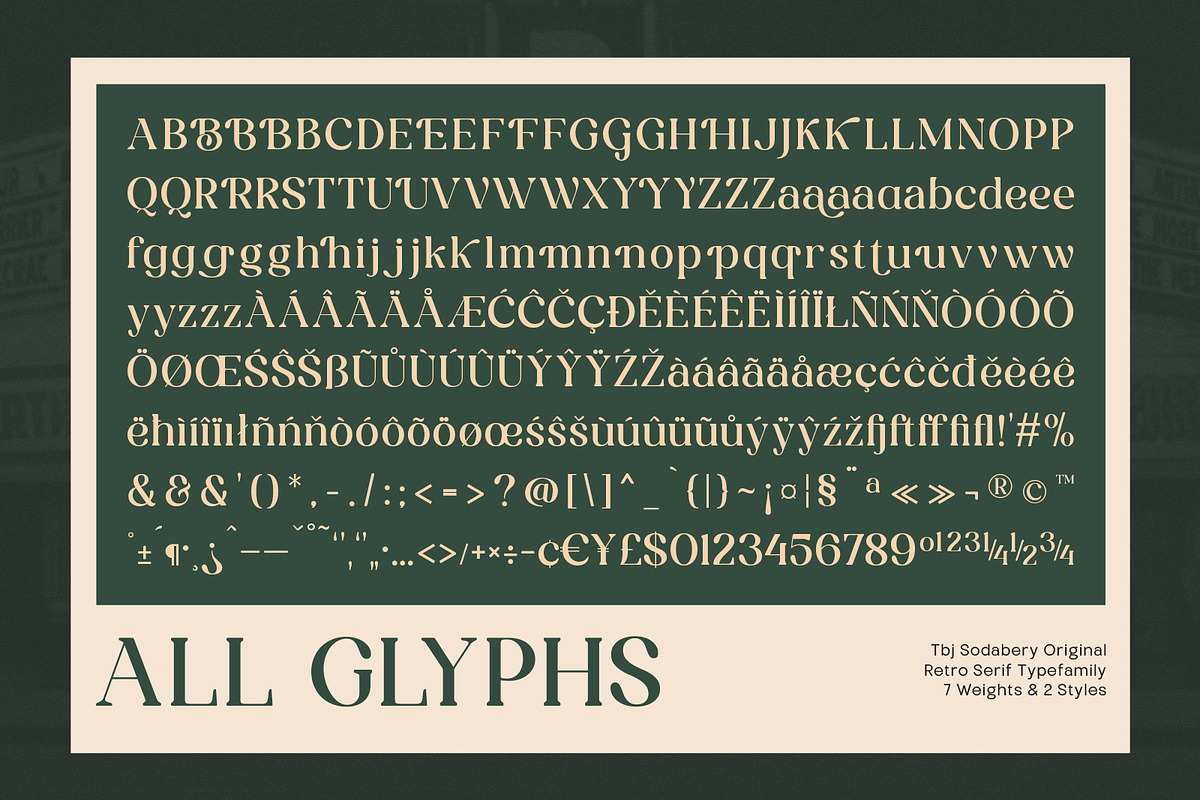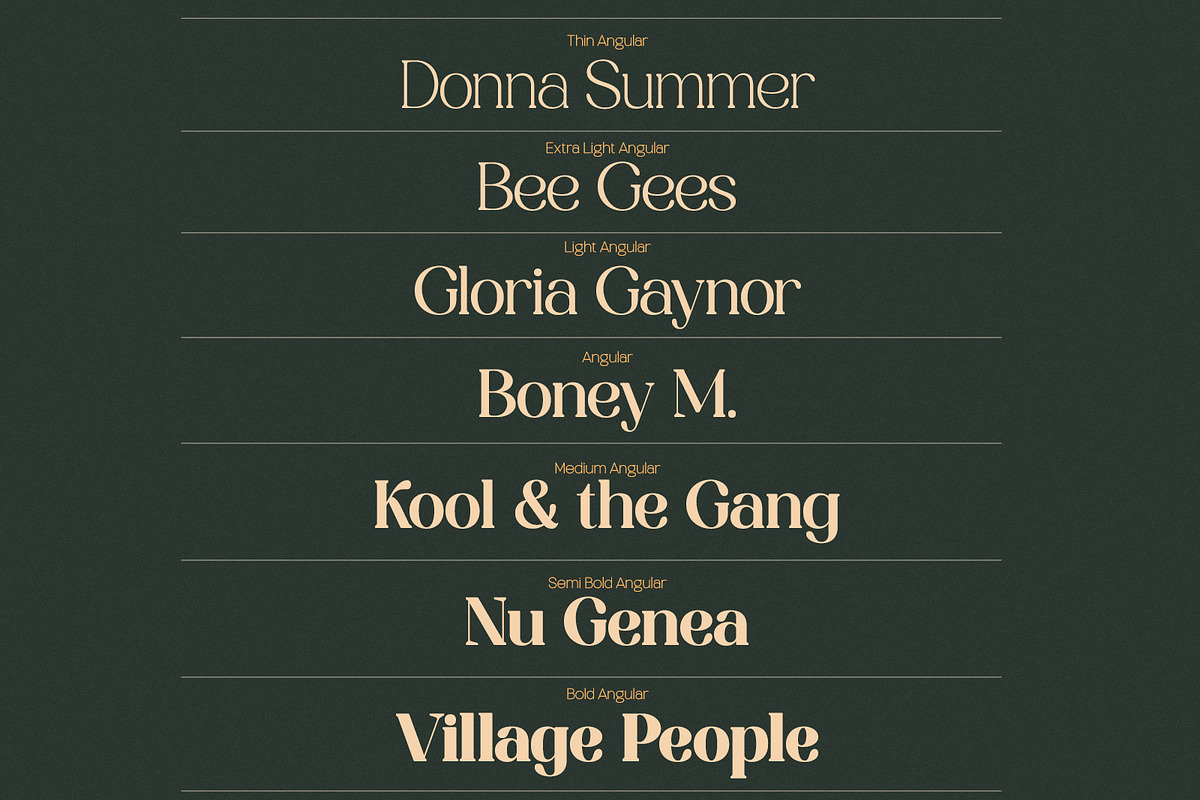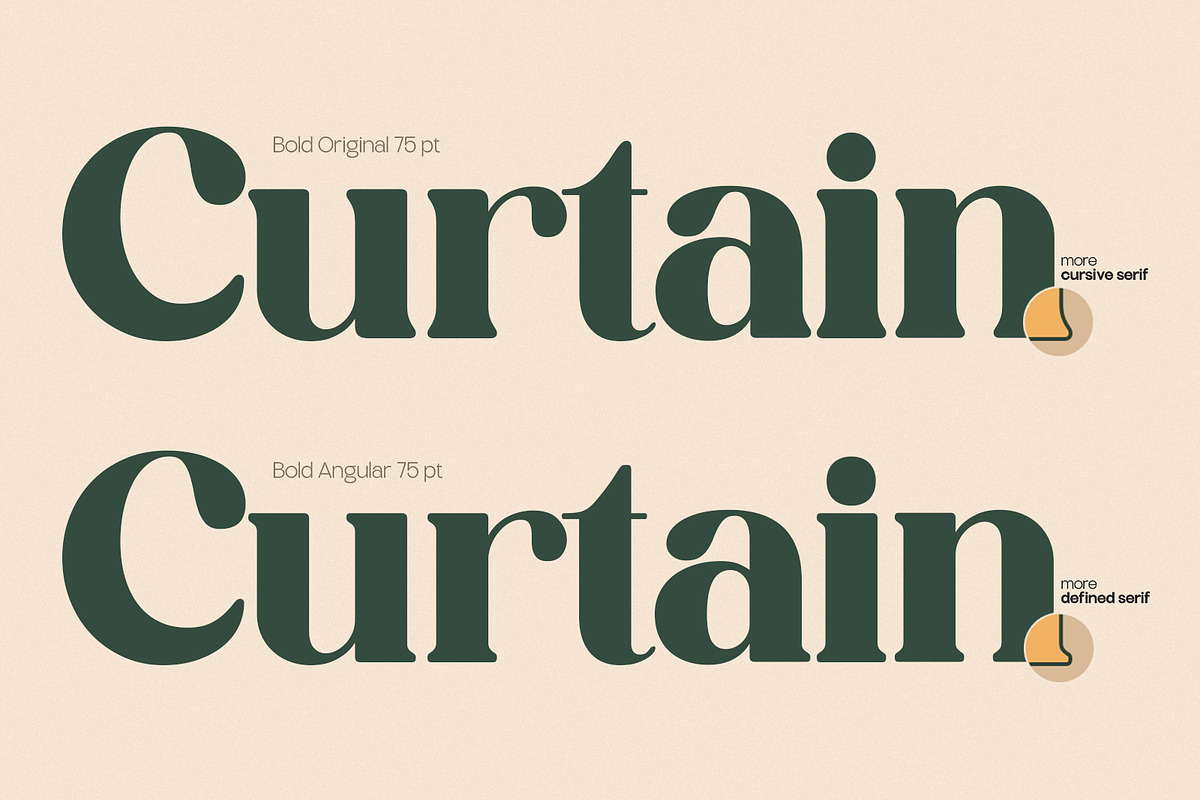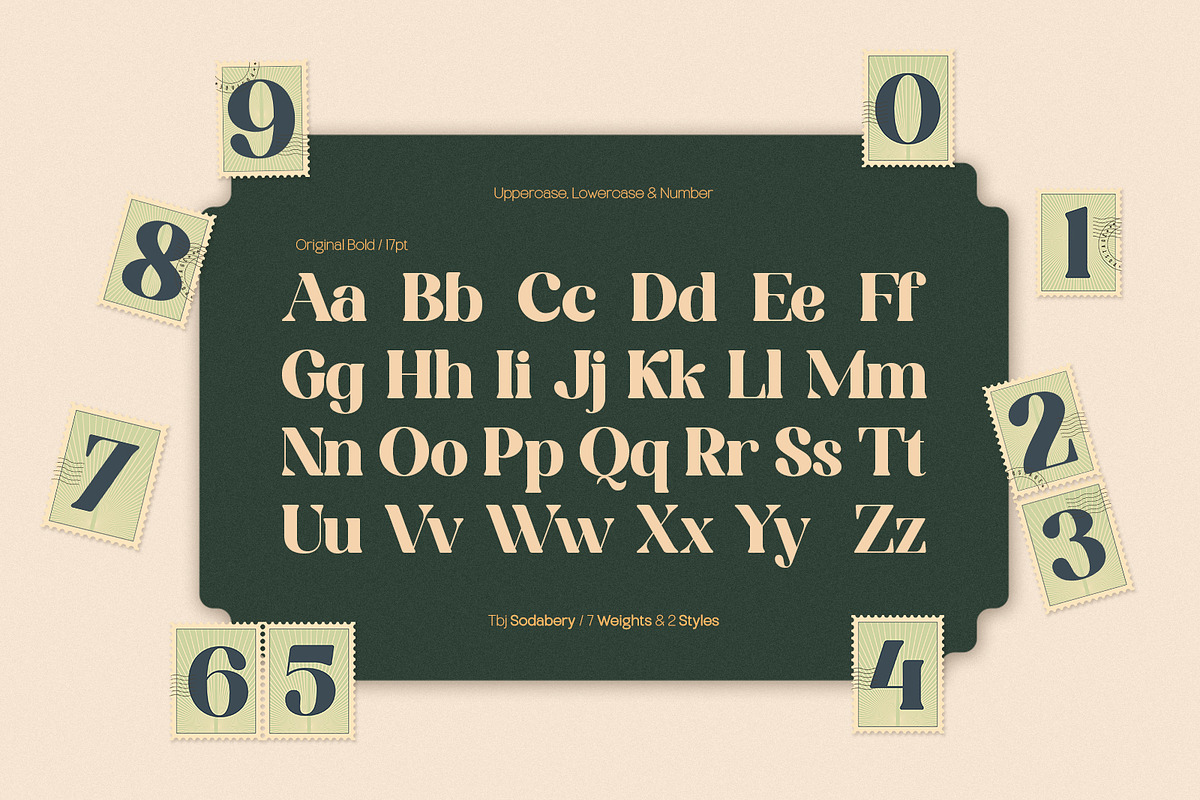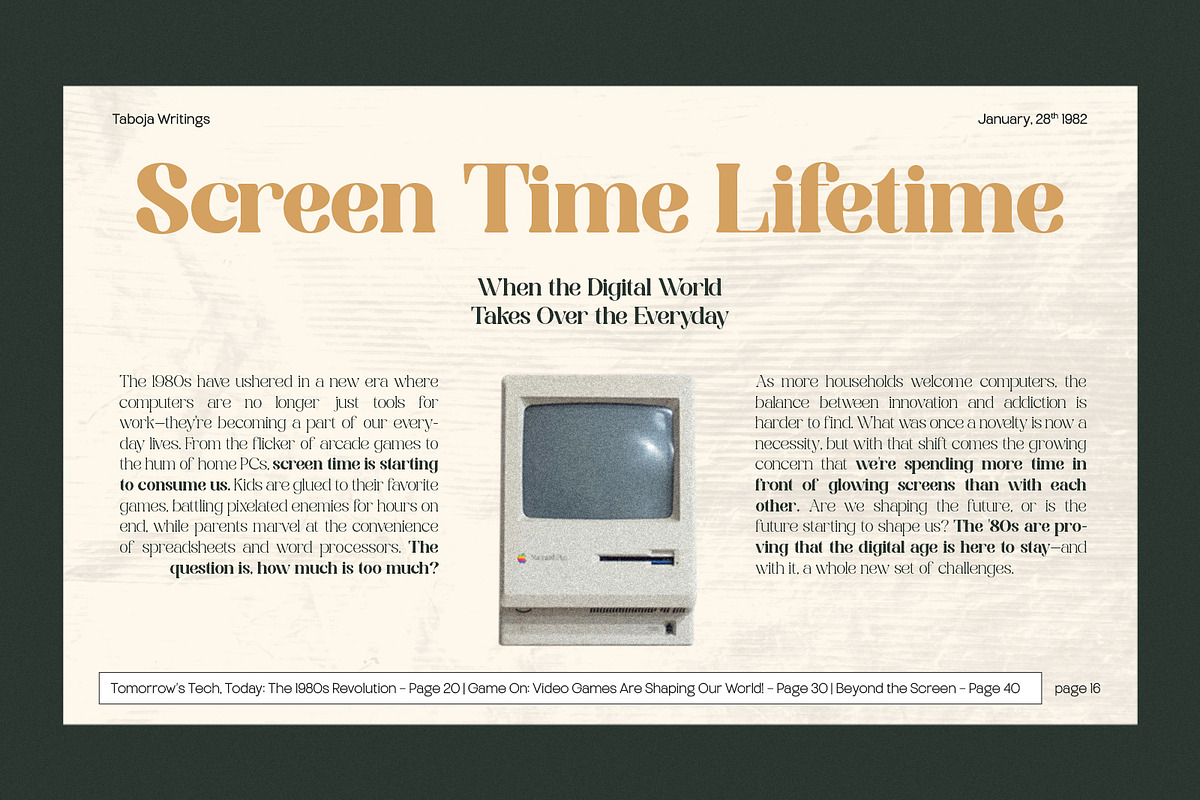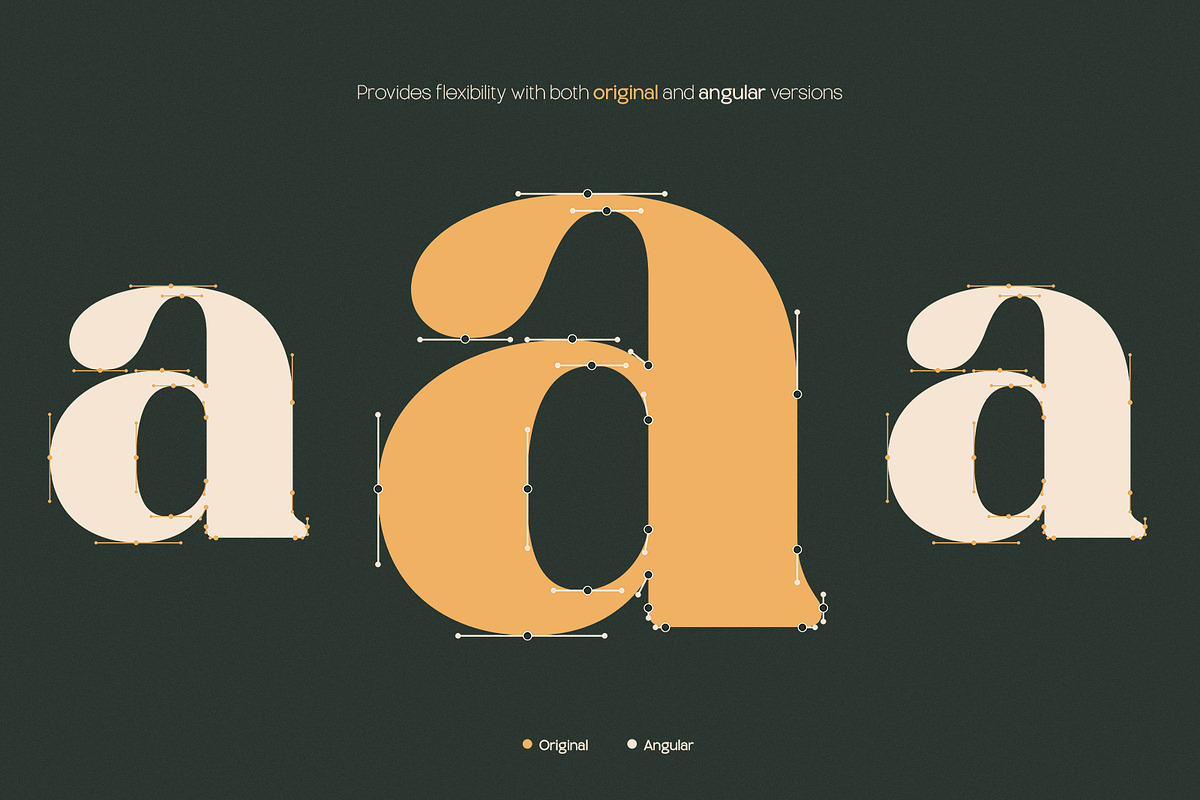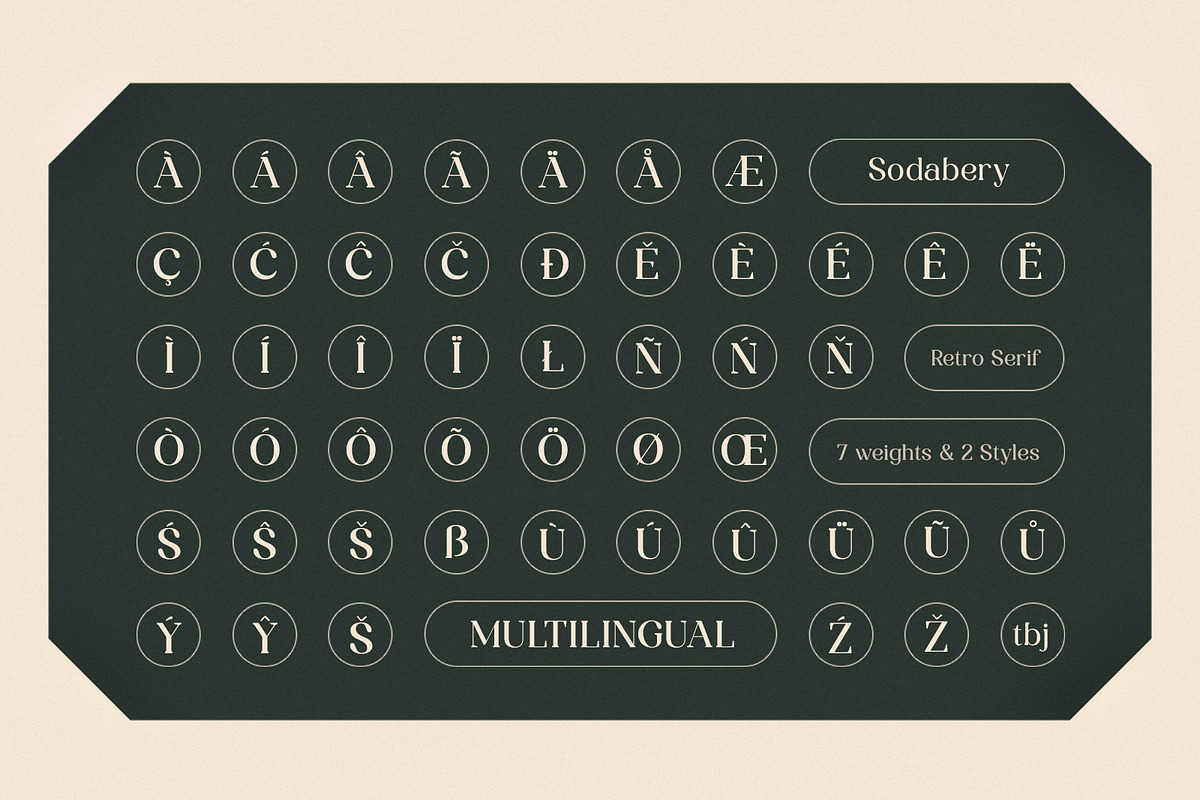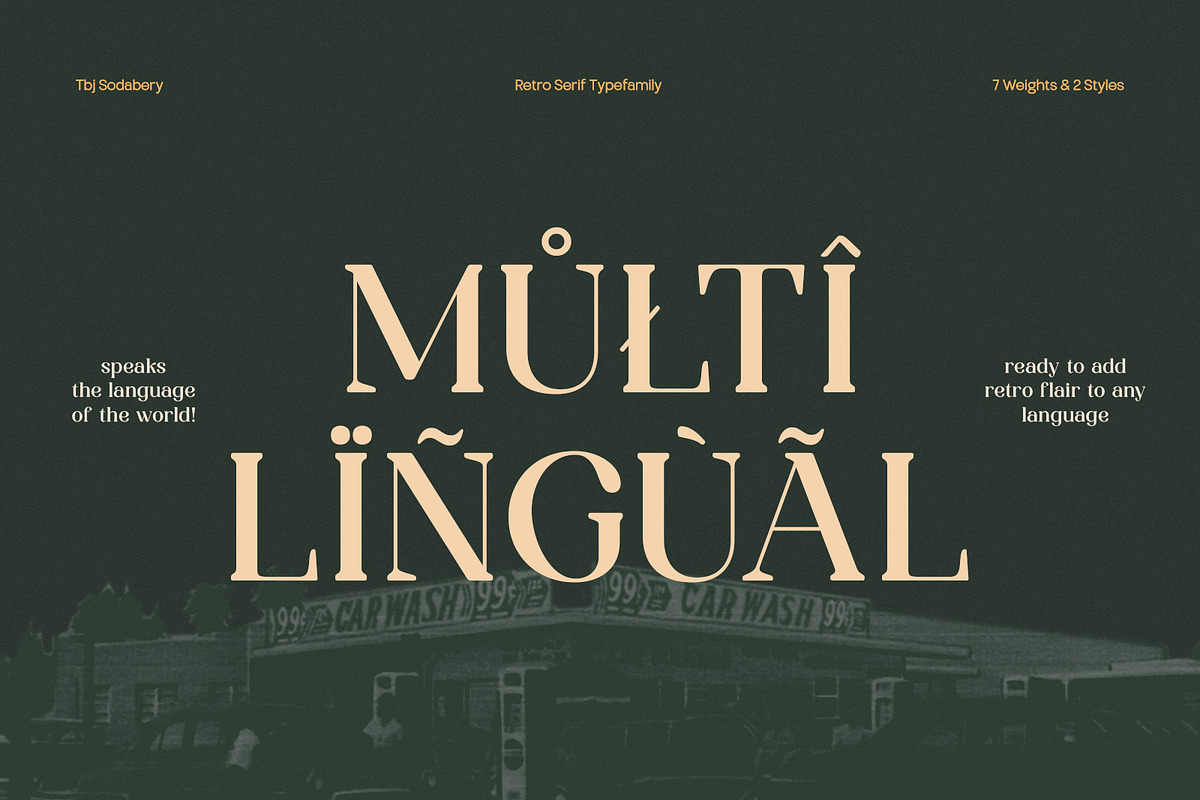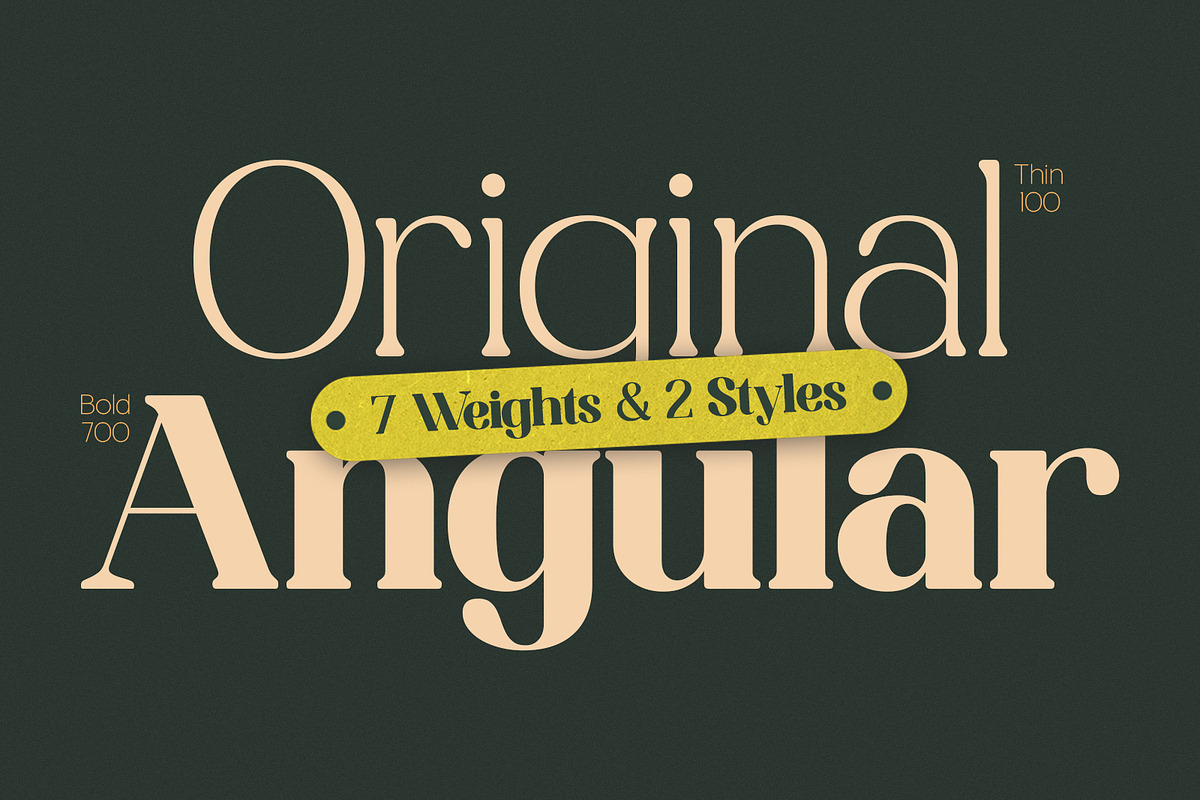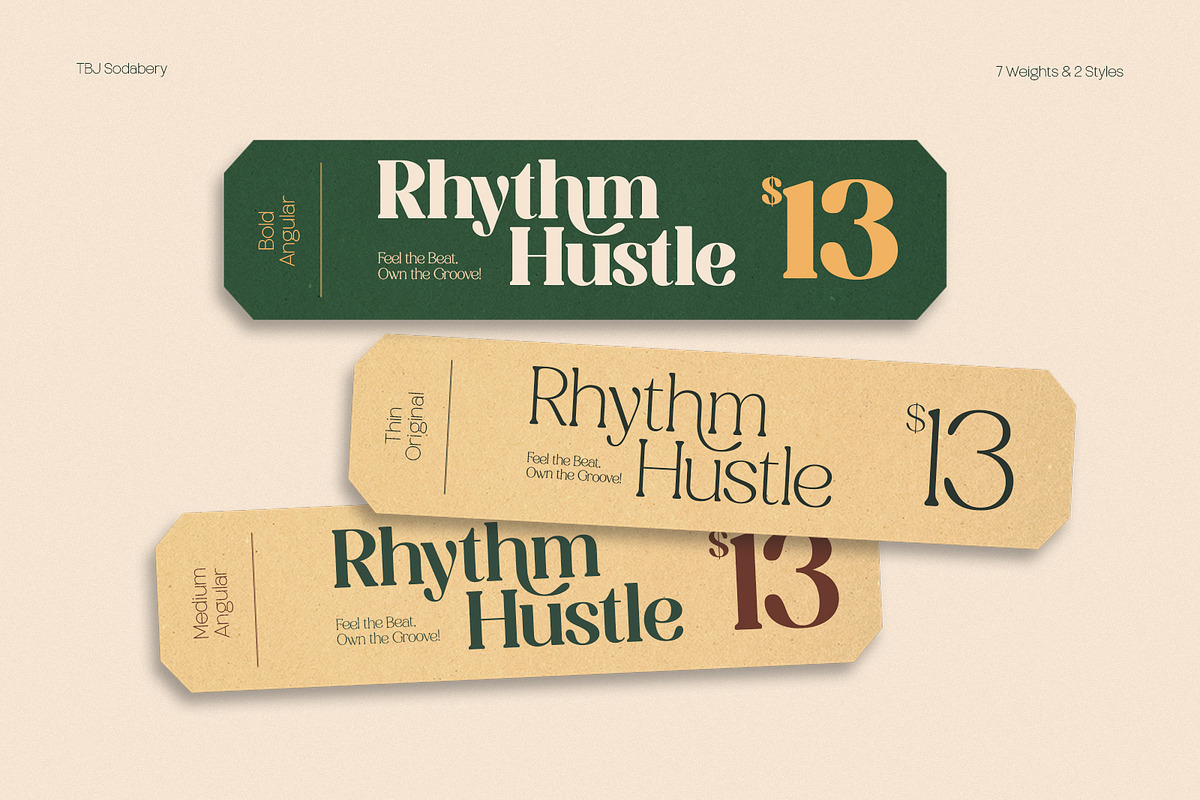
TBJ Sodabery Serif Retro Family
TBJ Sodabery brings retro charm with modern versatility. The newly expanded Sodabery font family now includes 7 weights and two distinct styles: Original and Angular Serif. This retro-inspired typeface adapts effortlessly to both print and digital projects. Whether you need bold headlines or readable body text, Sodabery strikes the perfect balance of style and functionality. With improved readability and added alternates, it’s designed to grow with your creative needs.
More than just a typeface, it’s a carefully crafted piece of design, meant to be cherished and bring creativity to life in every project.
Get the flexibility you need to make every project stand out.
TBJ Sodabery Serif Retro Includes:
- 2 Styles (Original & Angular)
- 7 Weights
- 363 Glyphs
- 115 Various Alternates And Ligatures